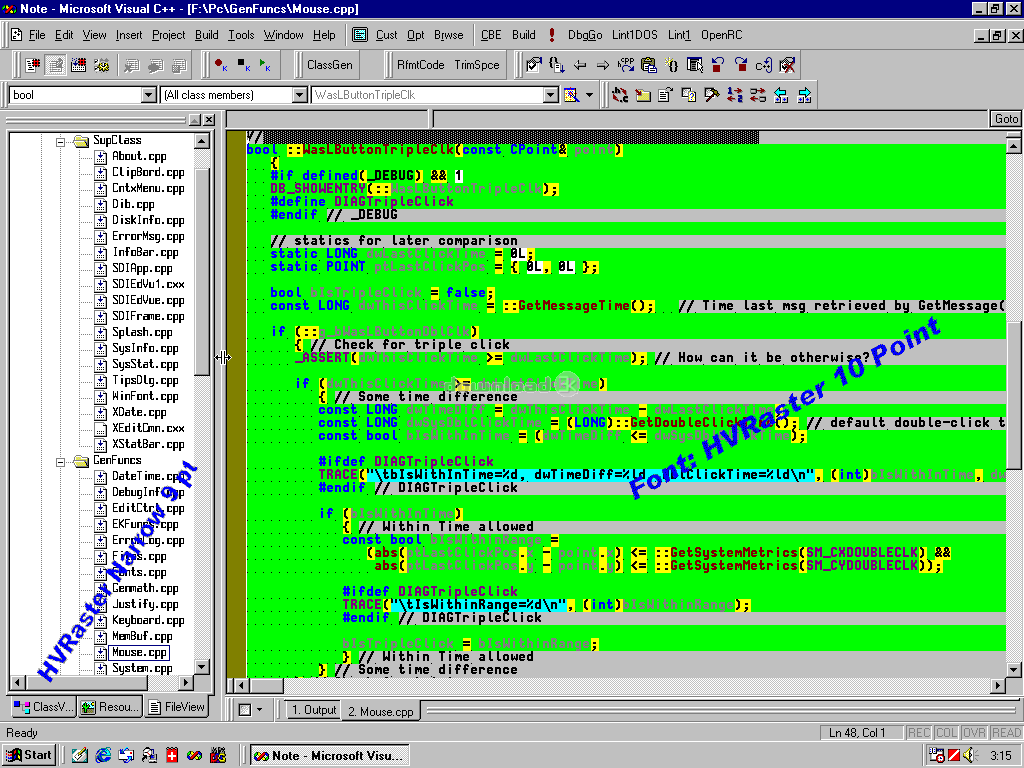
HVRaster - Programmers Editor Font 1.02
"Hi-Visibility Font for Programmers."
HVRaster is a Windows monospaced raster screen font especially designed for use in Program IDEs and Editors like Visual Studio, Delphi, Codewright and Slickedit. It includes many different point sizes in Standard, Wide and Narrow widths. The fontface is based on ProCon's Hi-Visibility HVFont which produces much stronger character glyphs and more legible punctuation characters. It uses a modified OEM Codepage 437 symbol set. Normally blank characters - like the binary NUL and ASCII 255 - are visible, and the space character can be shown as a grid to assist programmers and screen designers with code layout and design.Requirements: Windows